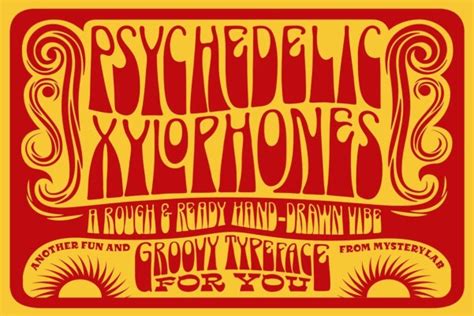
Free Psychedelic Xylophone Fonts
Unleash Your Inner Groovy: The Magic of Psychedelic Xylophone Fonts!
Hey, awesome font enthusiasts and design wizards! Are you ready to dive headfirst into a world of vibrant colors, mind-bending shapes, and seriously cool vibes? If you’re on the hunt for psychedelic xylophone fonts free to add that extra spark to your next project, then you’ve hit the jackpot! We’re about to embark on a colorful journey, exploring how these unique fonts can transform your designs from ‘meh’ to ‘WOW!’ Get ready to get inspired, because we’re talking about fonts that aren’t just letters; they’re experiences. Think groovy patterns, fluid lines, and a playful spirit that’s straight out of the swinging sixties and seventies, but with a modern twist.
These aren’t your average, everyday fonts, folks. Psychedelic xylophone fonts bring an immediate sense of fun, nostalgia, and artistic flair. Imagine using them for music festival posters, album covers, t-shirt designs, or even just adding a splash of personality to your social media graphics. The visual impact is undeniable. They evoke a sense of freedom, creativity, and a touch of whimsical rebellion. When you incorporate these fonts, you’re not just communicating text; you’re conveying an entire mood and aesthetic. It’s all about embracing the unconventional and letting your creativity flow like a lava lamp. So, let’s get into the nitty-gritty of why these fonts are so special and where you can snag some amazing freebies to play with.
Why Psychedelic Xylophone Fonts Are Pure Gold
So, why should you be excited about psychedelic xylophone fonts free ? Well, for starters, they’re incredibly versatile and instantly recognizable. These fonts often feature bold, flowing strokes, vibrant color palettes (even if you’re using them in black and white, the feeling of color is there!), and playful, often asymmetrical, letterforms. They borrow heavily from the art movements of the 60s and 70s, an era synonymous with experimentation and breaking free from norms. Think of posters advertising concerts by Jimi Hendrix or The Beatles – that’s the kind of energy we’re talking about!
But it’s not just about retro vibes. Modern interpretations of the psychedelic style often blend these classic elements with contemporary design trends, making them suitable for a wide range of applications. Whether you’re designing for a vintage-themed event, a modern music brand, a children’s book, or even a quirky business logo, a psychedelic xylophone font can add a unique personality that standard fonts simply can’t match. They have a way of making the ordinary extraordinary, transforming simple words into captivating visual statements. The inherent rhythm and movement in these letterforms can also subtly influence the reader’s perception, creating a sense of dynamism and excitement. It’s like each letter is dancing to its own groovy beat, inviting the viewer to join in. The tactile sensation implied by the name ‘xylophone’ also suggests a playful, percussive quality, adding another layer of sensory appeal to the typographic experience. Guys, it’s about making your text felt as much as it is read.
Furthermore, the availability of free psychedelic xylophone fonts is a huge plus for designers, hobbyists, and small businesses on a budget. You don’t need to break the bank to get access to high-quality, eye-catching typography. These free resources democratize design, allowing anyone with a creative vision to experiment and produce professional-looking results. They encourage exploration and experimentation, which is crucial for developing a unique design voice. Instead of settling for generic options, you can infuse your projects with a distinct character that sets them apart from the crowd. It’s about adding that special sauce, that je ne sais quoi, that makes people stop, look, and remember. So, let’s dive deeper into the specific elements that make these fonts so darn cool and explore some fantastic places where you can find them without spending a dime.
Diving Into the Design Details
What exactly makes a font scream psychedelic xylophone ? It’s a combination of elements, really. You’ll often see letters that are thick and rounded, with soft, flowing curves that seem to melt into each other. Some fonts might incorporate bubble-like shapes, swirling patterns, or even little decorative flourishes that add to the overall whimsical feel. The ‘xylophone’ part often comes into play with a sense of rhythm and playfulness, perhaps through variations in stroke weight, the spacing between letters, or even the inclusion of elements that suggest musical notes or mallets. Think of it like a visual melody you can read!
Color, of course, is intrinsically linked to the psychedelic aesthetic. While you’ll use the font in whatever color you choose for your design, the design of the letters often implies a vibrant palette. Many fonts in this style are created with the intention of being used with bright, contrasting colors – think neon pinks, electric blues, sunshine yellows, and groovy oranges. Even in a monochrome setting, the inherent curves and flourishes of these fonts can create a dynamic interplay of light and shadow, giving them a life of their own. The shapes themselves are often inspired by natural forms, optical illusions, and abstract art, contributing to their surreal and captivating appearance. They play with perception, encouraging the viewer to look closer and discover hidden details within the letterforms.
Another key aspect is the playful distortion of traditional letter structures. Letters might be stretched, squashed, or interconnected in unexpected ways. This deliberate deviation from the norm is what gives psychedelic fonts their unique character and makes them so memorable. They challenge our expectations of what text should look like, pushing the boundaries of typographic design. It’s this sense of playful subversion that makes them so appealing for projects aiming for a fun, energetic, and unconventional vibe. The inherent texture and visual weight of these fonts can also add a unique tactile quality to digital or print designs, making them feel more substantial and engaging. We’re talking about fonts that don’t just sit there; they perform .
Where to Find Free Psychedelic Xylophone Fonts: Your Treasure Map!
Alright guys, the moment you’ve been waiting for! Finding awesome psychedelic xylophone fonts free is totally doable with a little digging. The internet is brimming with fantastic resources where designers share their creations, often for free, under various licensing agreements (always check the license, by the way!).
Here are some go-to spots:
Google Fonts : While not always having explicitly ‘psychedelic xylophone’ fonts, Google Fonts offers a massive library of diverse typefaces. You can often find sans-serif or decorative fonts with rounded, playful characteristics that can lean into a psychedelic feel. Spend some time browsing their categories and using their filters – you might be surprised by what you find!
-
DaFont : This is a classic for a reason! DaFont has a HUGE collection of free fonts, categorized by style. Look under categories like ‘Script,’ ‘Decorative,’ or ‘Retro.’ You’ll likely stumble upon numerous fonts that capture the psychedelic essence. Just be sure to check the ‘100% Free’ or ‘Free for Personal Use’ tags.
See also: PSEIMOSTSE's Gaming Adventures In China -
Font Squirrel : Font Squirrel is another excellent resource that curates high-quality free fonts, often with commercial-use licenses. They have a great search function, so try terms like ‘groovy,’ ‘retro,’ ‘60s,’ or ‘70s’ to uncover hidden gems.
-
Creative Market (Free Goods) : While primarily a marketplace, Creative Market often offers free goods each week, which can include fonts. Keep an eye on their ‘Free Goods’ section – you might snag a premium font for free!
-
Behance & Dribbble : Many independent font designers showcase their work on platforms like Behance and Dribbble. Sometimes, they offer free versions of their fonts or full freebies as a way to promote their work. Search for ‘free font’ or ‘psychedelic font’ and explore the amazing talent out there.
-
Urban Fonts : Similar to DaFont, Urban Fonts offers a wide array of free fonts, including many decorative and themed styles that could fit the psychedelic bill. Remember to always check the licensing terms before using any font, especially for commercial projects. Some free fonts are strictly for personal use, while others allow for broader application.
When you’re browsing, keep an eye out for descriptive keywords like ‘groovy,’ ‘retro,’ ‘60s,’ ‘70s,’ ‘funky,’ ‘swirl,’ ‘bubble,’ or ‘cartoon.’ These terms often lead to fonts with the playful, fluid, and vibrant characteristics you’re looking for. Don’t be afraid to experiment! Sometimes, a font that isn’t explicitly labeled ‘psychedelic’ can still achieve the effect when used in the right context with the right colors and design elements. It’s all about creative application, guys!
Putting Your Groovy Fonts to Work!
So, you’ve downloaded some killer psychedelic xylophone fonts free – now what? The possibilities are endless, but here are a few ideas to get your creative juices flowing:
- Poster Design : Perfect for music events, parties, or any occasion that calls for a bold, attention-grabbing announcement. Layering text, using vibrant color gradients, and adding graphic elements will make your posters pop.
- Album Art & Branding : Give your music or creative business a unique identity that screams personality. These fonts are fantastic for logos, social media banners, and anything that needs to stand out.
- T-Shirt Graphics : Create wearable art! A cool slogan or band name in a psychedelic font can make for some seriously stylish apparel.
- Website/Blog Elements : Use them for headings, call-to-action buttons, or even as decorative elements on a creatively themed website to add a unique flair.
- Invitations & Greeting Cards : Make your special occasions extra memorable with invitations that have a fun, retro, or whimsical vibe.
- Children’s Projects : The playful nature of these fonts makes them ideal for children’s books, party decorations, or educational materials.
Remember, the key to successfully using psychedelic xylophone fonts is to embrace their inherent playfulness and energy. Don’t be afraid to experiment with color, spacing, and complementary design elements. Sometimes, less is more, but with these fonts, a little bit of bold can go a long way! Combine them with other groovy graphic elements like swirling patterns, retro illustrations, or even just simple geometric shapes in bright colors.
Always double-check the licensing terms for any free font you use. Many are free for personal projects, but commercial use might require a different license or attribution. This ensures you’re using the fonts legally and ethically. Websites like DaFont and Font Squirrel usually provide clear licensing information for each font. It’s crucial to respect the hard work of the font creators. If a font is free for personal use only, don’t use it on a product you plan to sell without obtaining the proper commercial license. Most designers are happy to offer affordable commercial licenses, so it’s worth checking their websites or contacting them directly if you fall in love with a font and need it for business.
Ultimately, psychedelic xylophone fonts are a fantastic way to inject personality, fun, and a memorable aesthetic into your designs. They’re a nod to a vibrant past, reimagined for today’s creative landscape. So go forth, download some awesome freebies, and let your creativity run wild! Happy designing, everyone!